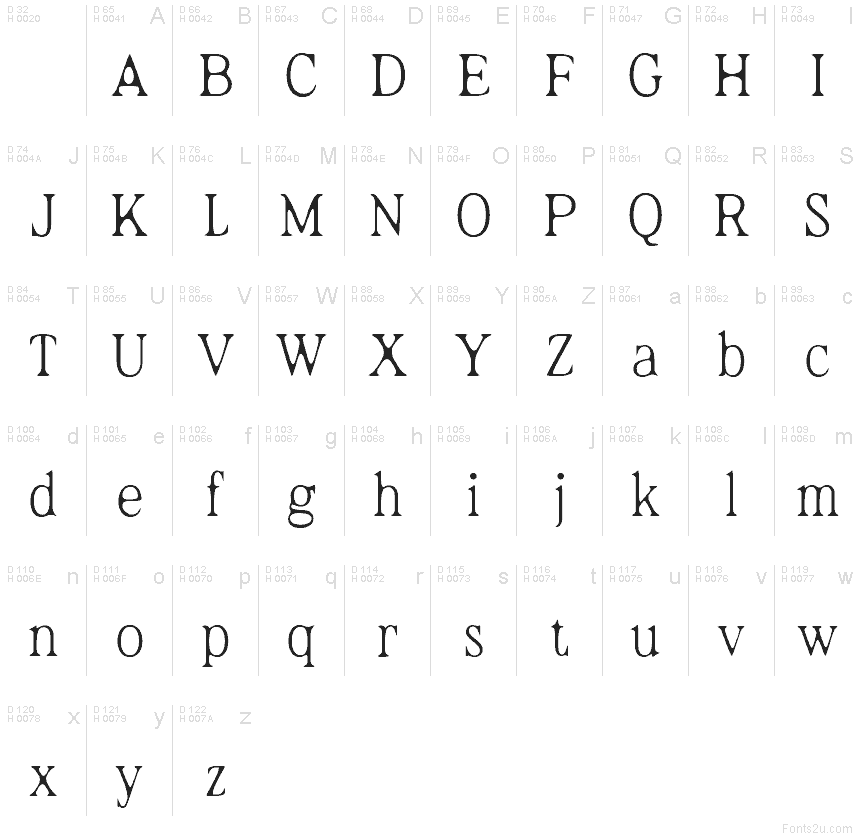
CS Sheila Drawn font by Craft Supply Co. is a free hand‑drawn serif font. As the tactile, illustrated cut of the CS Sheila family, it stands out with gently rough edges, etched stress, and delicate hairlines that feel inked rather than engineered. The proportions remain elegant and upright, so you get editorial poise with a soft, human tremor—polish without the chill.
Using CS Sheila Drawn, headlines gain a quiet crackle that reads as crafted, not distressed. It shines on boutique branding, book covers, artisanal packaging, wedding stationery, editorial spreads, posters, and café menus. Set it large for the grain to breathe; pair with a calm, modern sans for body copy to let this free font do the storytelling.